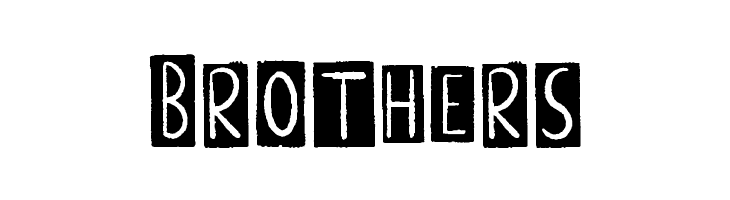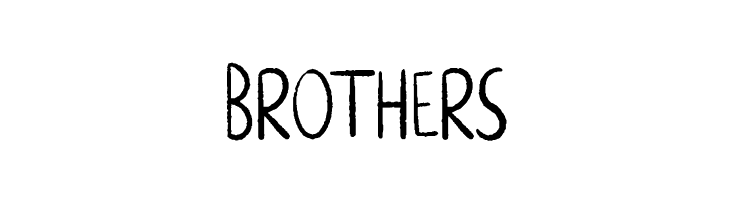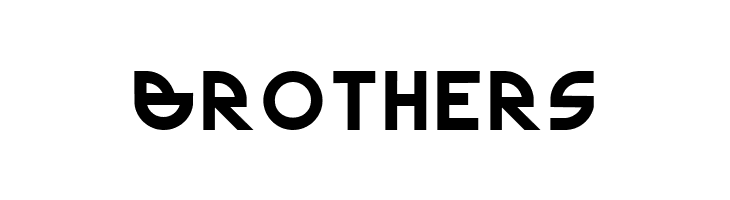
( Peter Olexa - www.dealjumbo.com )
A bold, angular font with a geometric and modern style.
( balazs95 )
A futuristic, geometric font with sharp angles and consistent stroke width.
( Jacob King - www.typespace.co.uk )
A sleek, modern font with clean lines and a minimalist aesthetic.
A bold, dynamic brush script with expressive strokes and a hand-painted look.
( ALTERED CARBON )
A futuristic, geometric font with bold, angular letterforms ideal for tech-inspired designs.
( Fonts by Roland Huse - rolandhuse.com )
( Fonts by Caffeen Fonts - www.swank.ca/caffeen/fonts/ )
An artistic and decorative font with swirling, vine-like patterns.
A bold, rugged font with a hand-crafted, vintage appearance.
An elegant script font with flowing, cursive letters and intricate loops.
( Helldunkel - www.helldunkel.com )
A bold, geometric font with a futuristic and modern aesthetic.
( Fonts by Jetsmax Studio )
A hand-drawn, playful font with an artistic and casual style.
( Fonts by Jetsmax Studio )
A bold, hand-drawn font with characters in black squares, offering a raw, edgy style.
A bold, rounded font with a playful, retro 1990s aesthetic.
( Alternika )
A dynamic handwritten font with fluid, cursive letterforms and varied stroke thickness.
A bold, futuristic font with geometric and angular letterforms.
A bold, futuristic font with geometric and angular design.
An elegant, high-contrast script font with flowing, interconnected letters.
A bold serif font with high contrast and a classic yet modern style.
A classic serif font with elegant curves and a calligraphic touch.
A semi-bold serif font with elegant curves and classic style.
( Caveras - Cliff Modes - caveras.net )
A pixelated, retro-style font with a blocky, digital appearance.
A bold, playful handwritten font with rounded, consistent strokes.
( Fonts by Dagon Collective )
A bold, monospaced font with geometric lines and uniform character width.
( Fonts by Dagon Collective )
A clean, geometric monospaced font ideal for technical and modern applications.
( Fonts by Dagon Collective )
A modern, monospaced font with a clean and precise design.
A modern, geometric sans-serif font with clean lines and uniform width.
A modern, geometric font with uniform line thickness and rounded edges.
A flowing, cursive font with interconnected characters and elegant style.
A modern, italic sans-serif font with smooth curves and consistent stroke width.